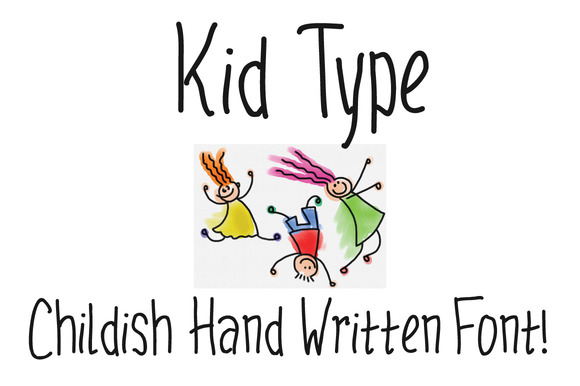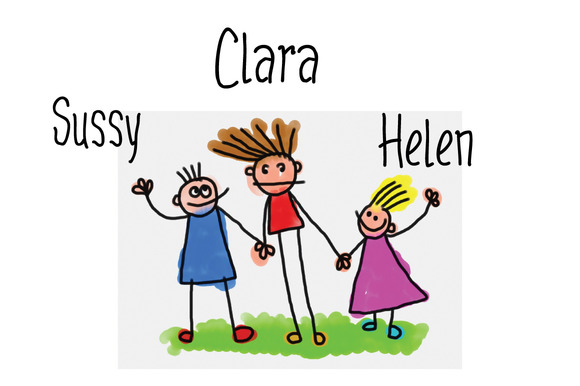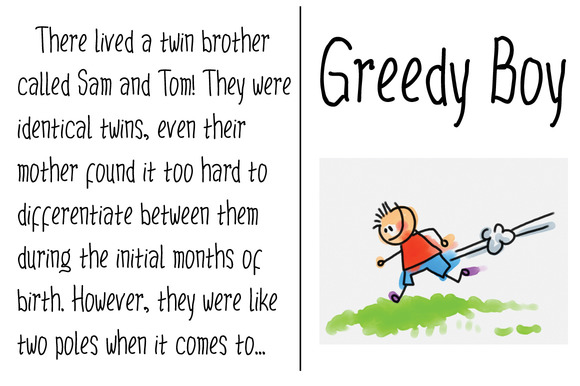
Kidtype Font
About Kidtype Font
Kid Type is a very playful handwritten font which is great for kids designs!
Comes with a total of 270 glyphs and has:
Complete Punctuation
Support for Latin Languages
Eastern European Support
Turkish Support